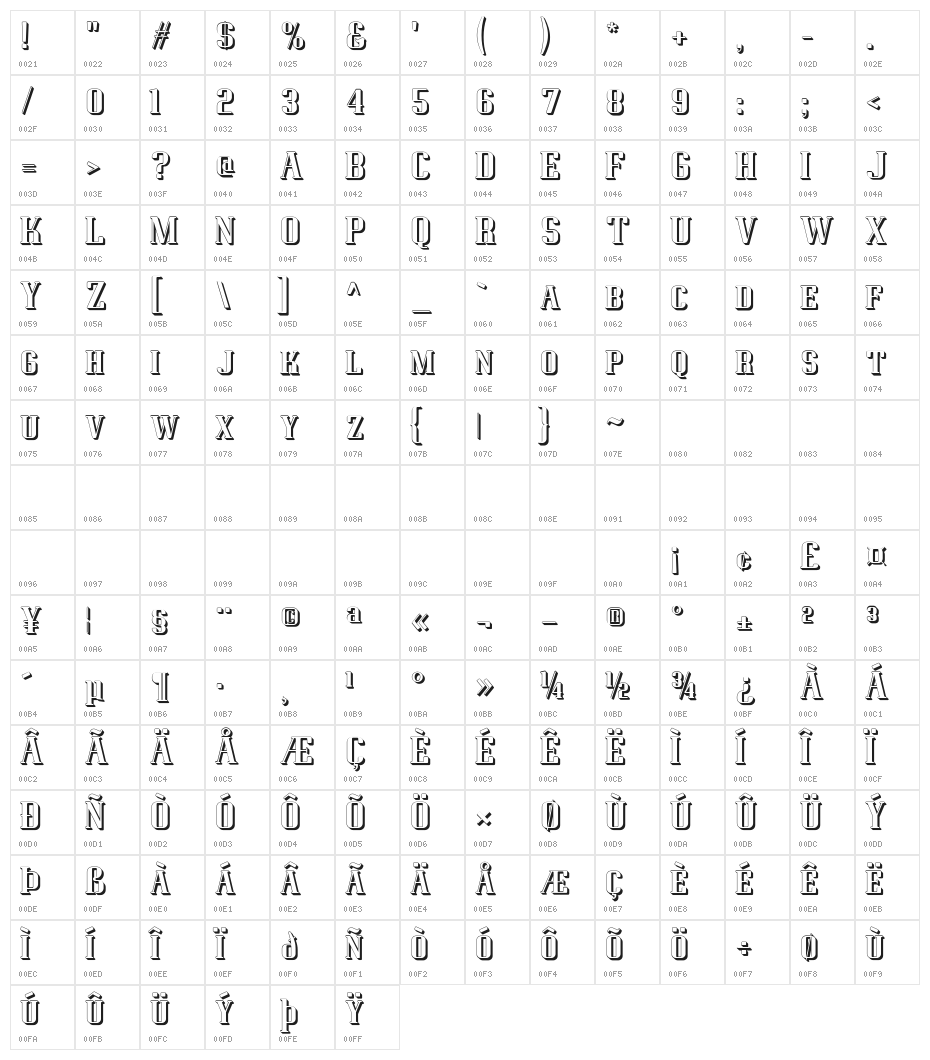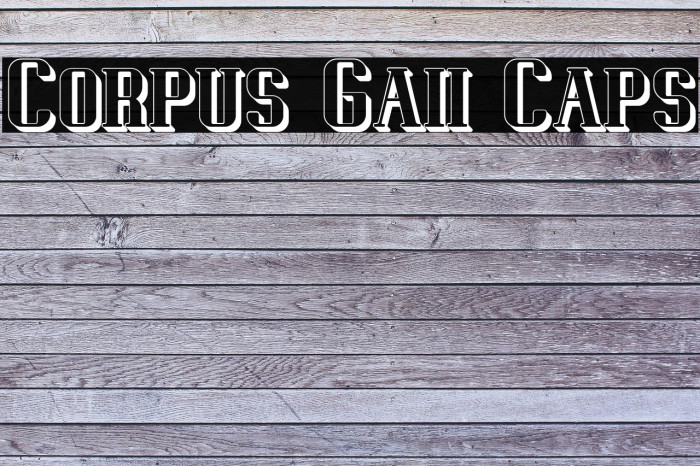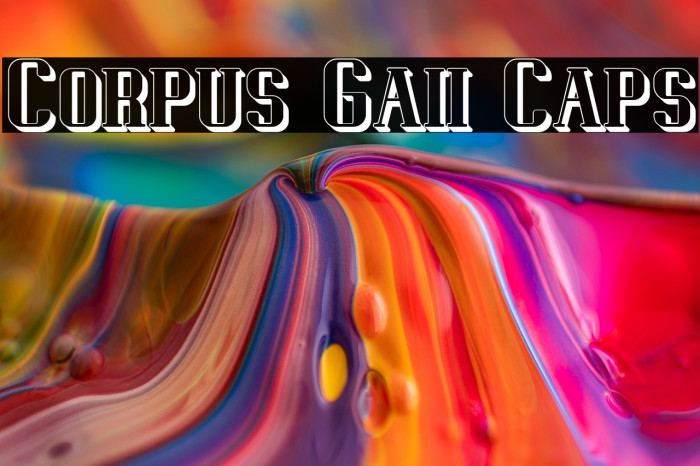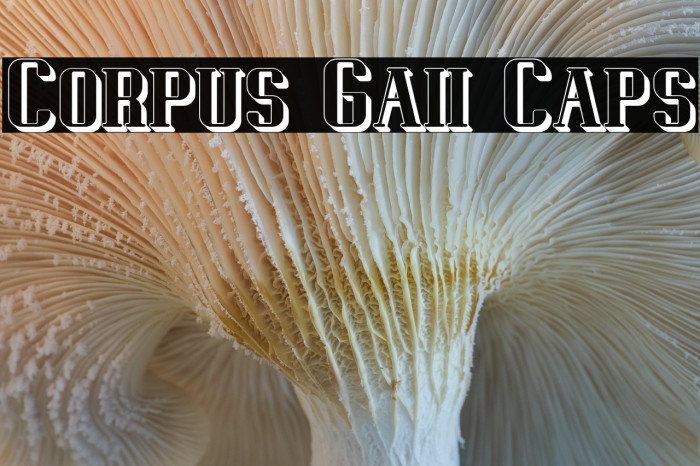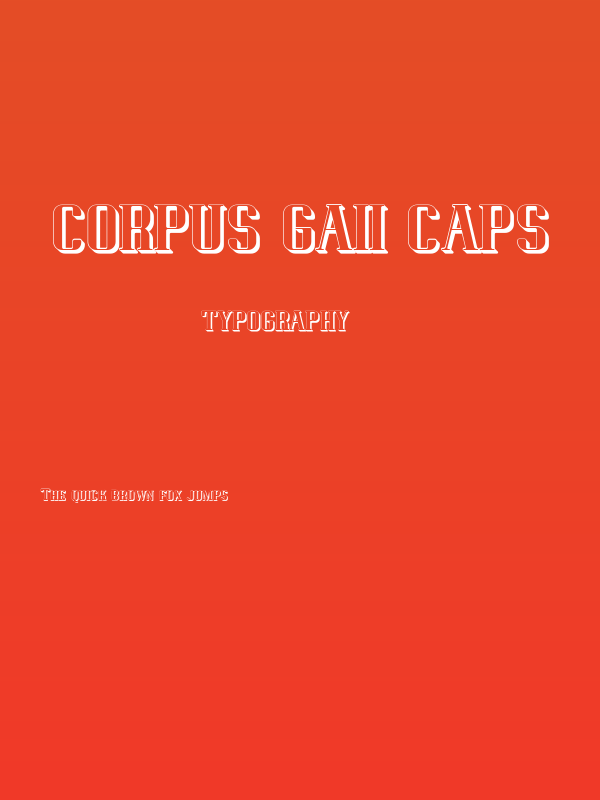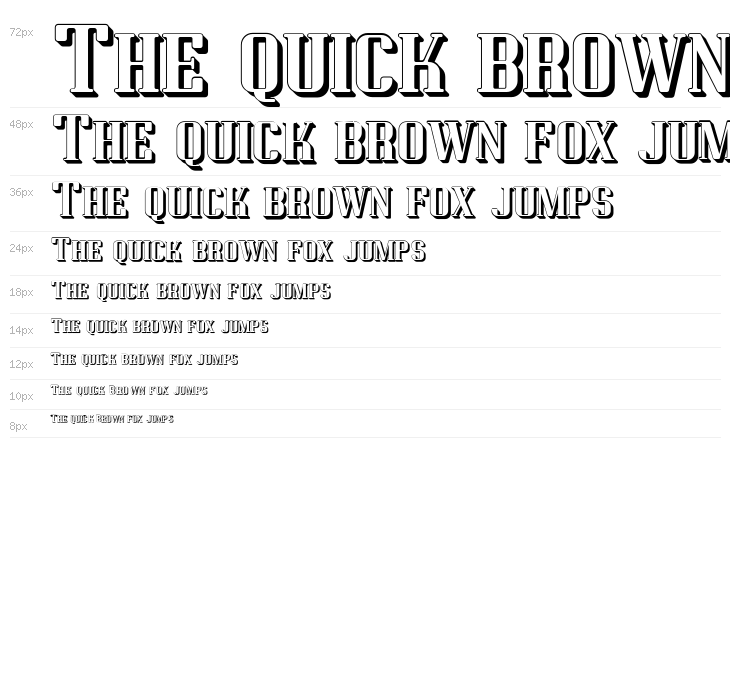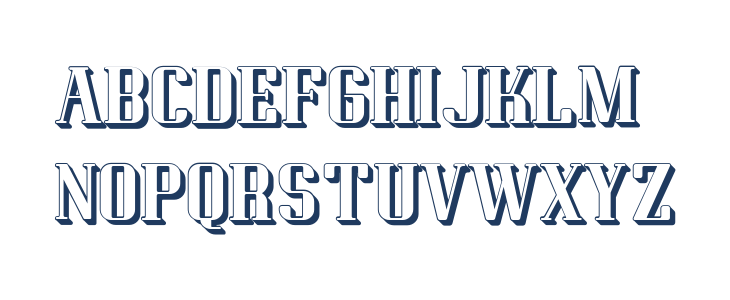
Corpus Gaii Caps Font
Corpus Gaii Caps Description
This font features a bold, decorative style with a strong presence. Each character is outlined with a shadow effect, giving it a three-dimensional appearance. The uppercase letters are prominent and commanding, while the numbers and special characters maintain the same boldness and style. The font's design is reminiscent of vintage signage or classic poster typography, making it ideal for projects that require a touch of nostalgia or a bold statement. The characters are evenly spaced, ensuring readability while maintaining a distinct and eye-catching look.
| Proposed Projects | Ideal for vintage-themed posters, signage, branding projects, and headlines that require a bold and decorative touch. |